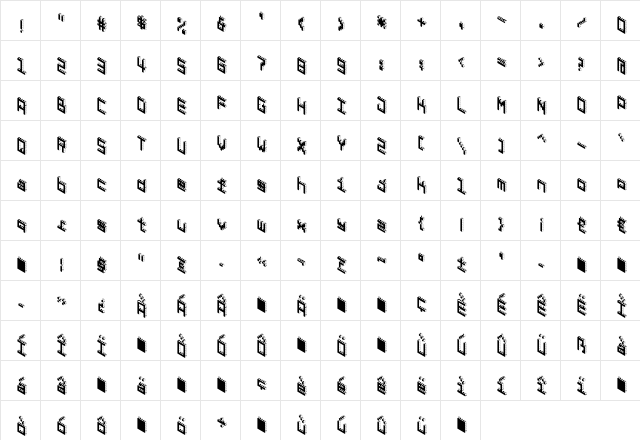
Lego Regular Font Preview
Lego Regular
Lego Regular Font Details
Design Context for Lego Typeface
Lego is a composed and adaptable typeface that performs quietly and consistently across a wide range of design contexts.